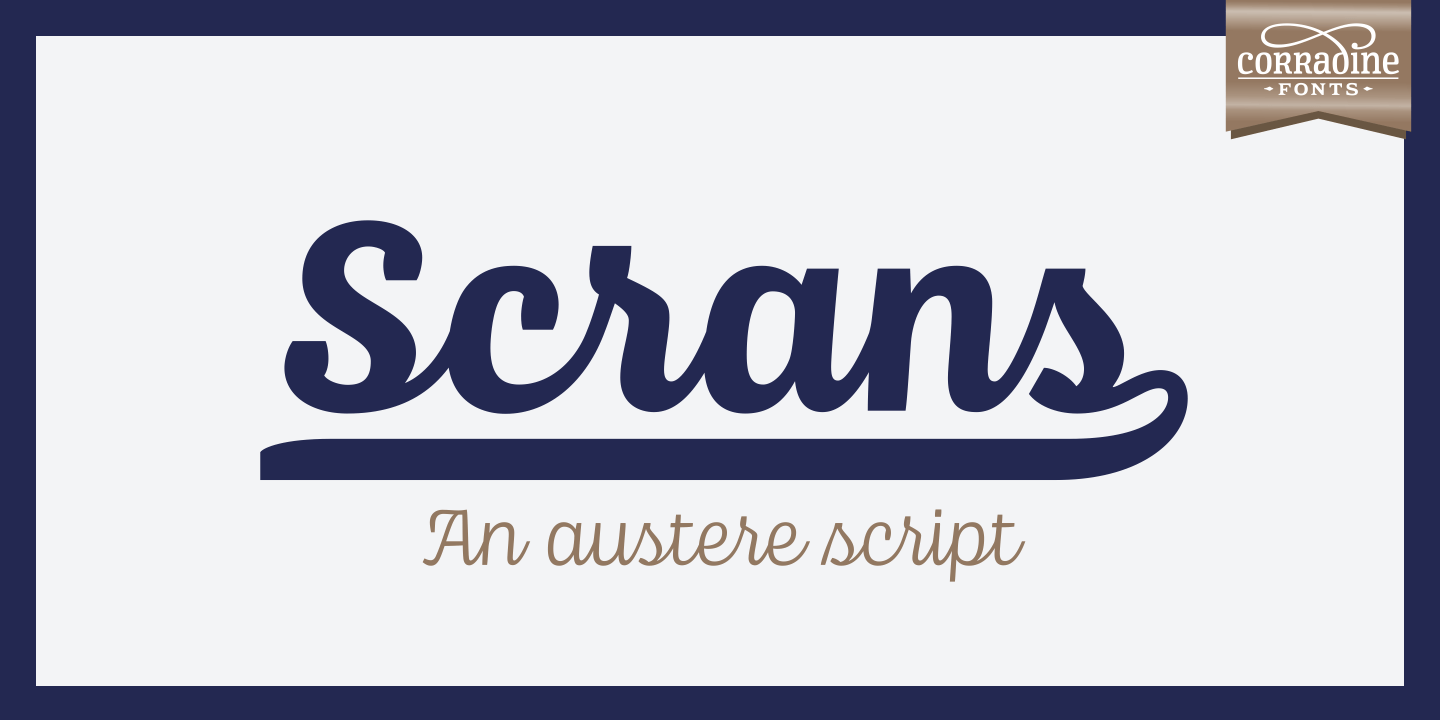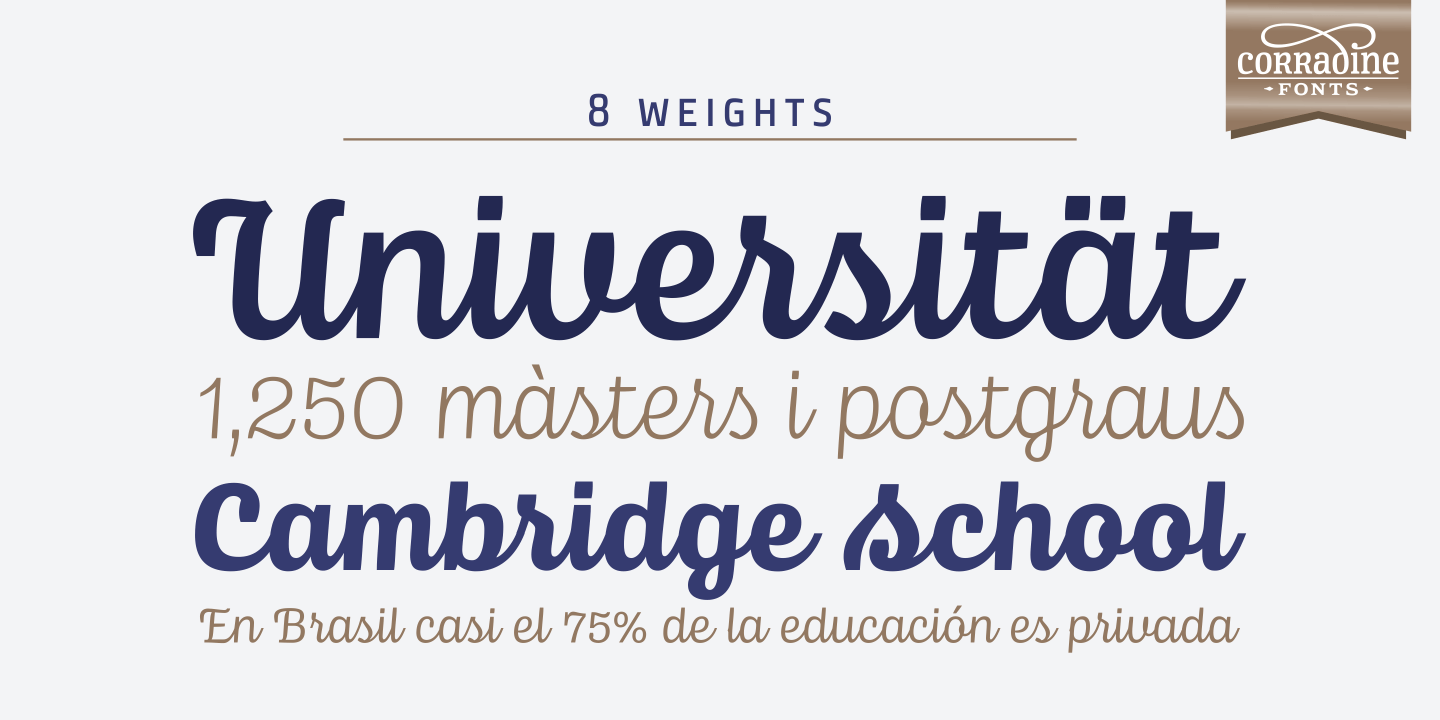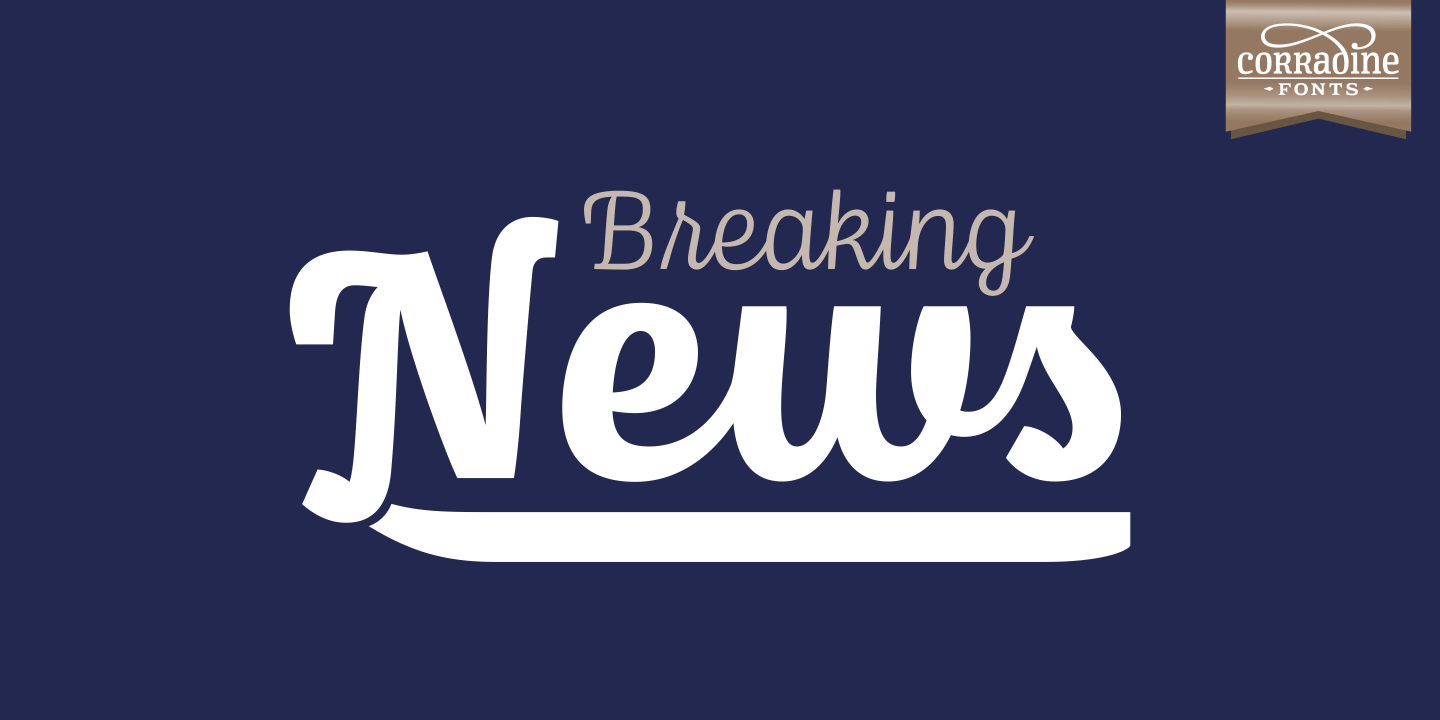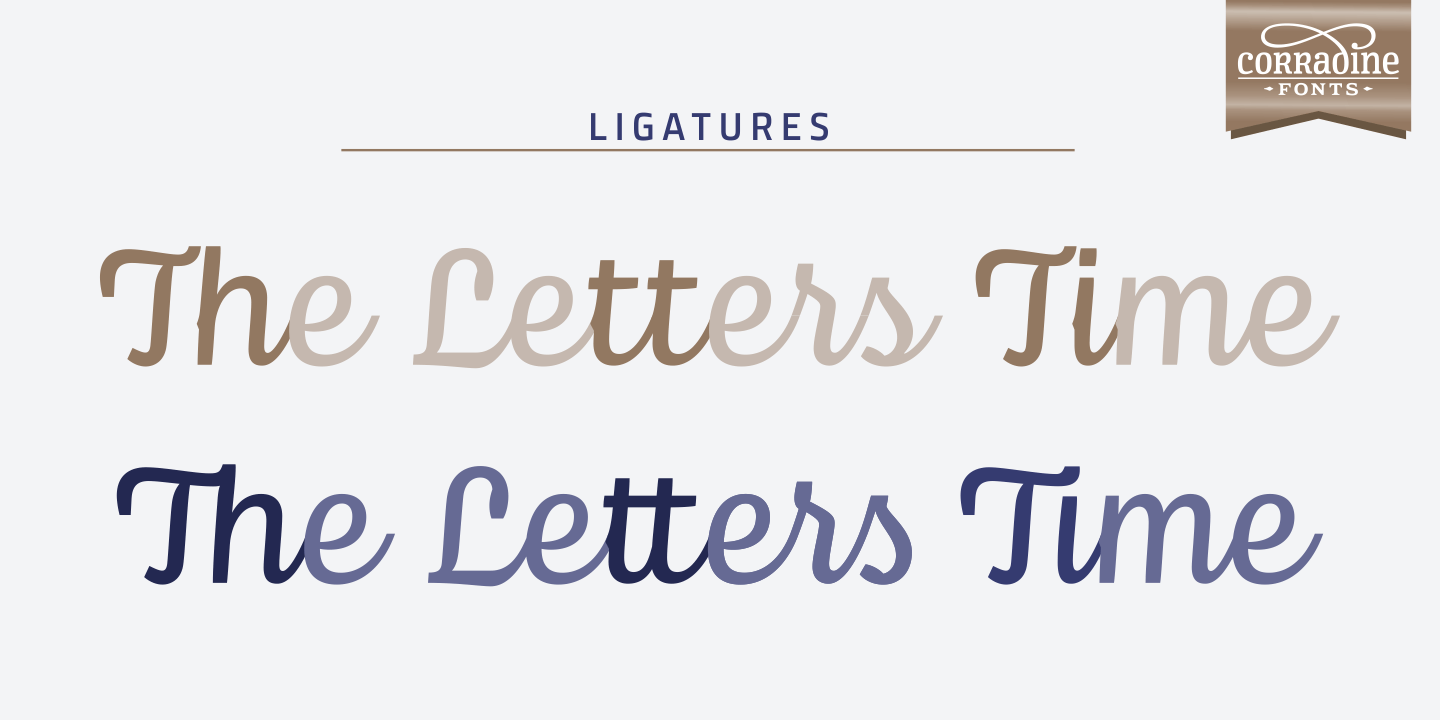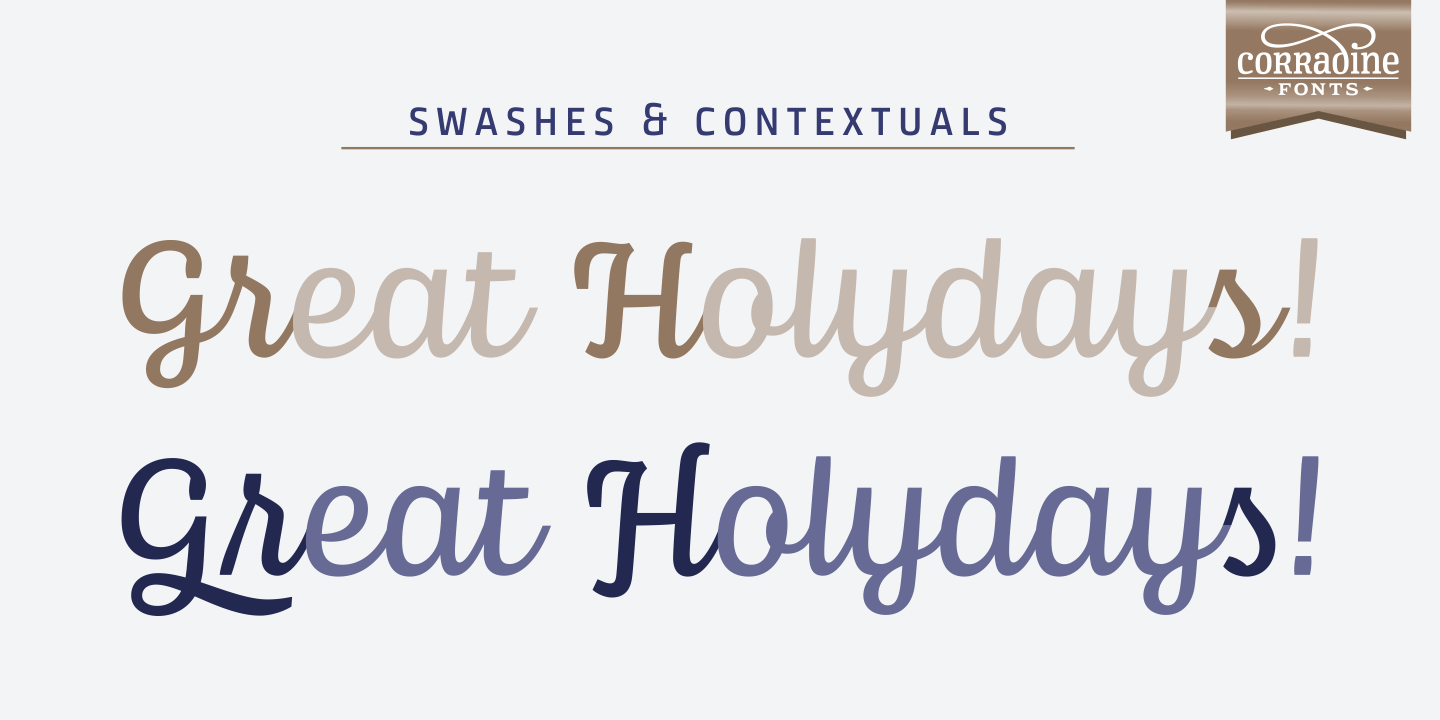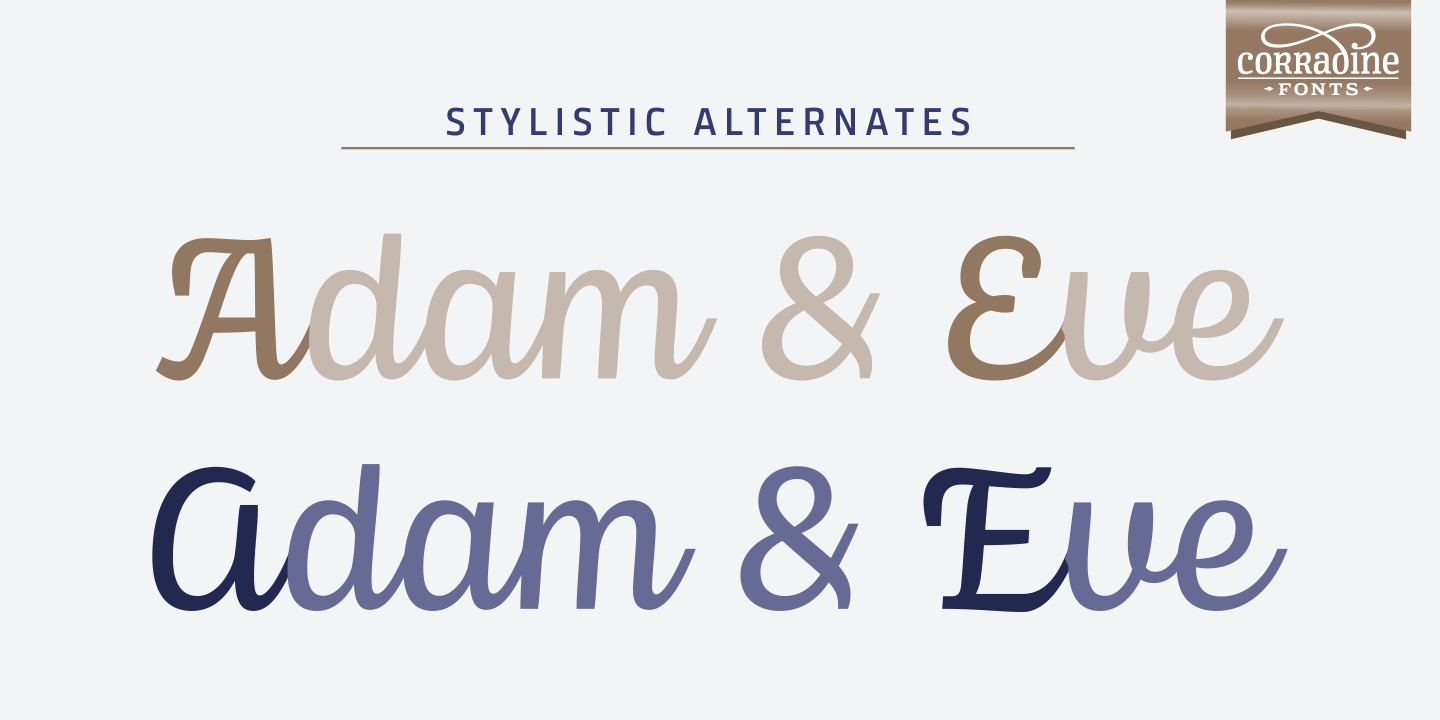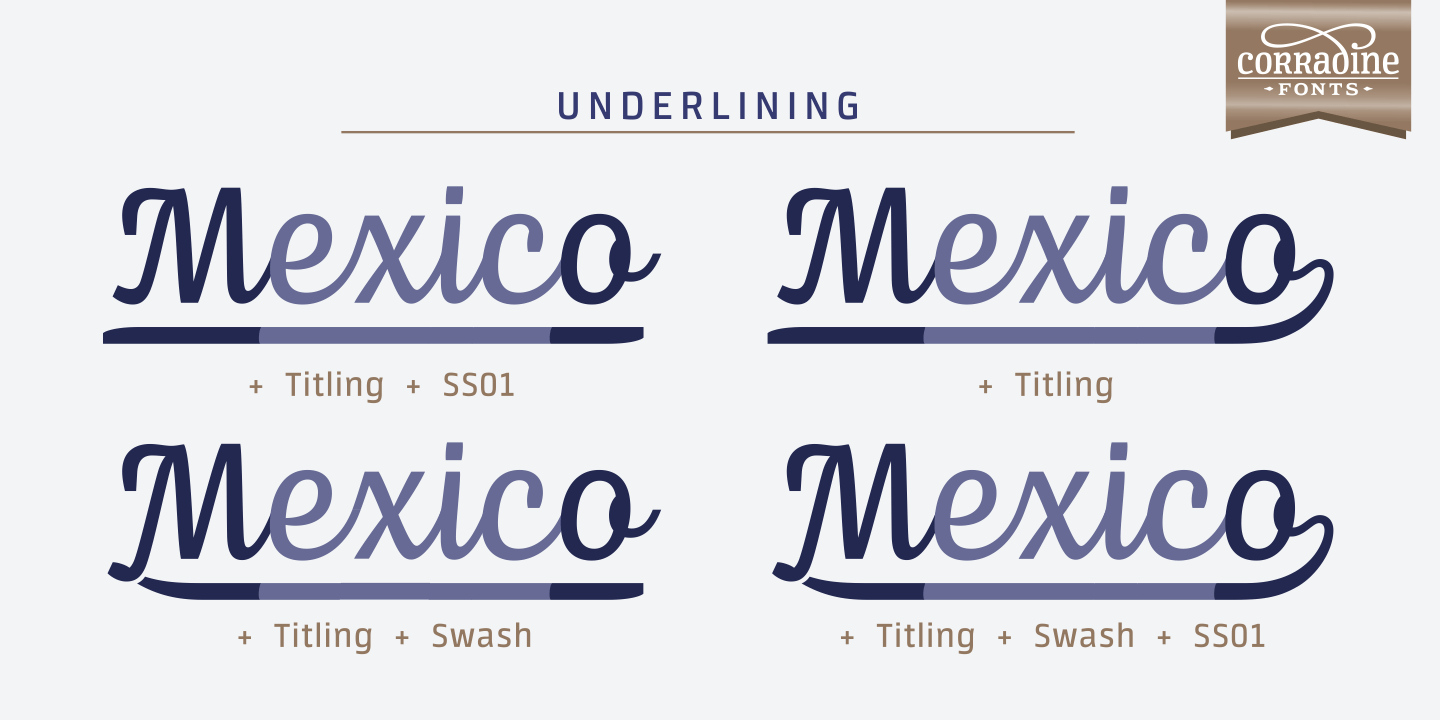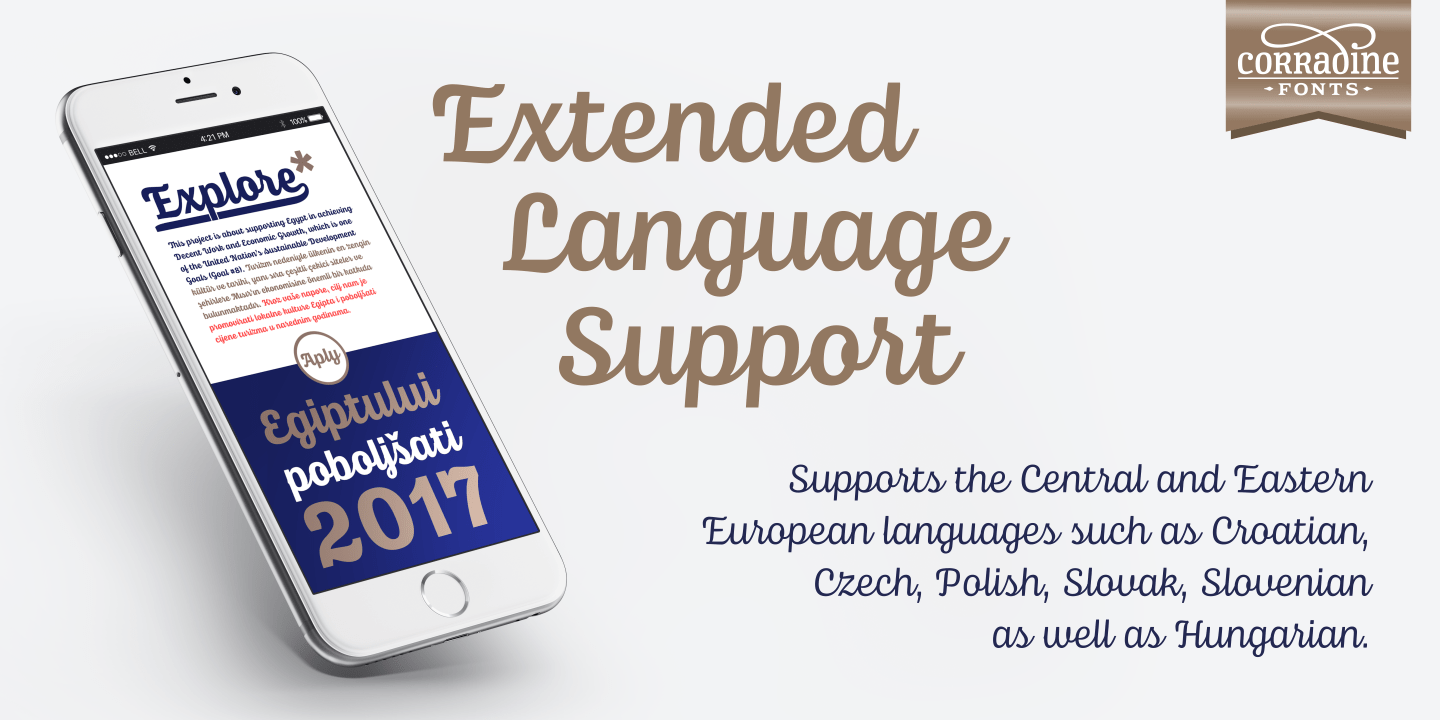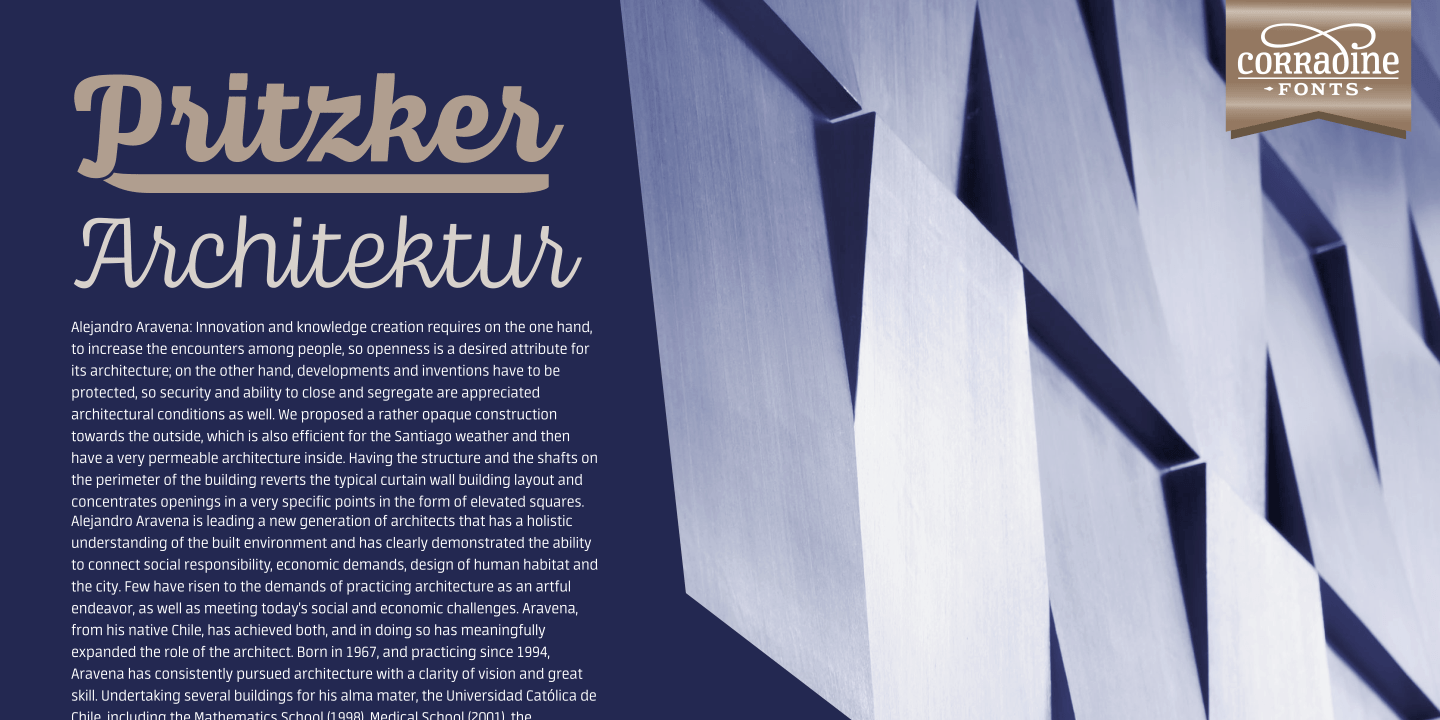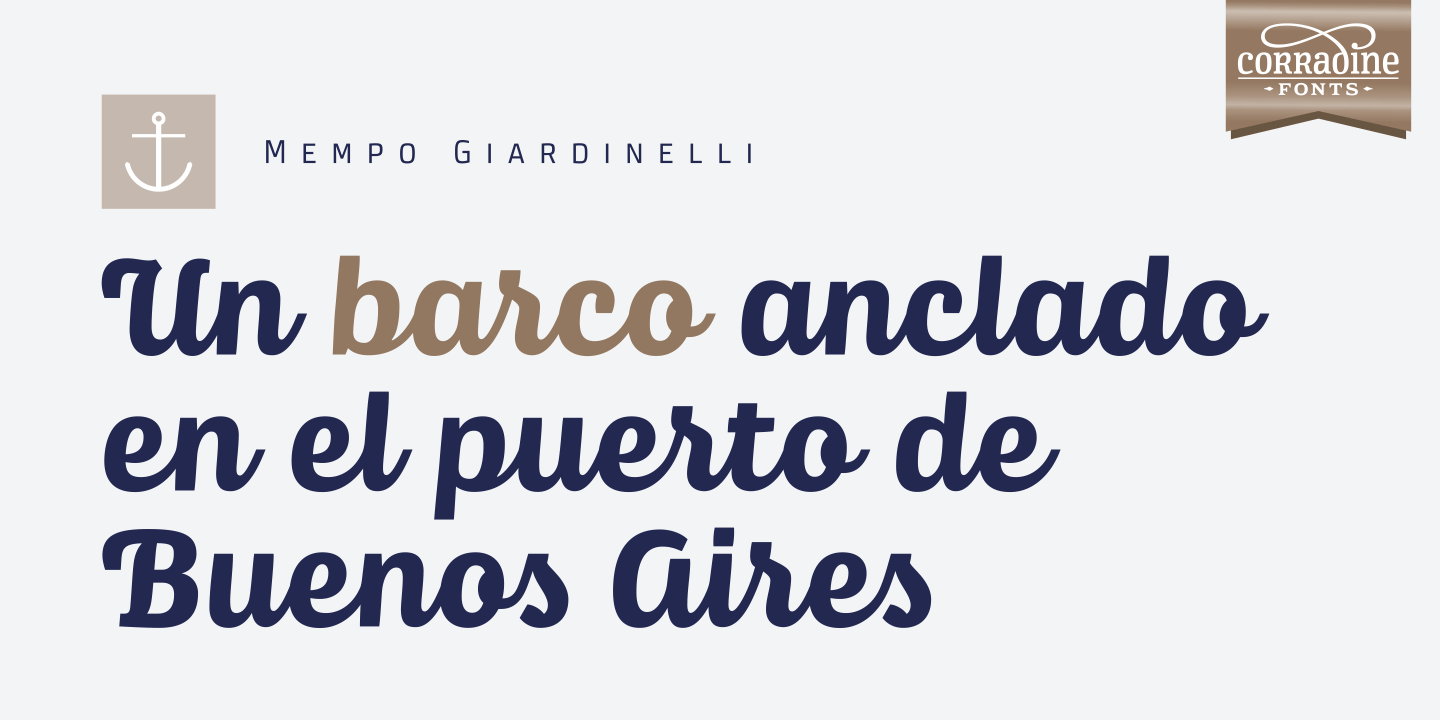
Scrans
Font Family by Corradine Fonts
Scrans (Script + Sans) is a modern script family that gets both, conceptual and formal elements, from classic rational and geometric styles. It's main purpose is to make the difference in an innovative manner. In other words, you can use Scrans in texts where traditionally the classic scripts won't fit. Scrans is a powerful tool that helps you to obtain clean, minimalists, geometric, contemporary, and mostly, highly legible designs.
Each detail in the design of Scrans (like it's compact proportions, it's soft connections, it's cutted endings and it's subtle slant angle), was carefully crafted so you can get a high quality font to use in any project. You can also take advantage of its Open Type features that improve the potential of the typeface, with stylistic alternates and the options to underline smartly the words.
Each one of the eight weights supports many languages, including Central and Eastern European as well as Western European languages.